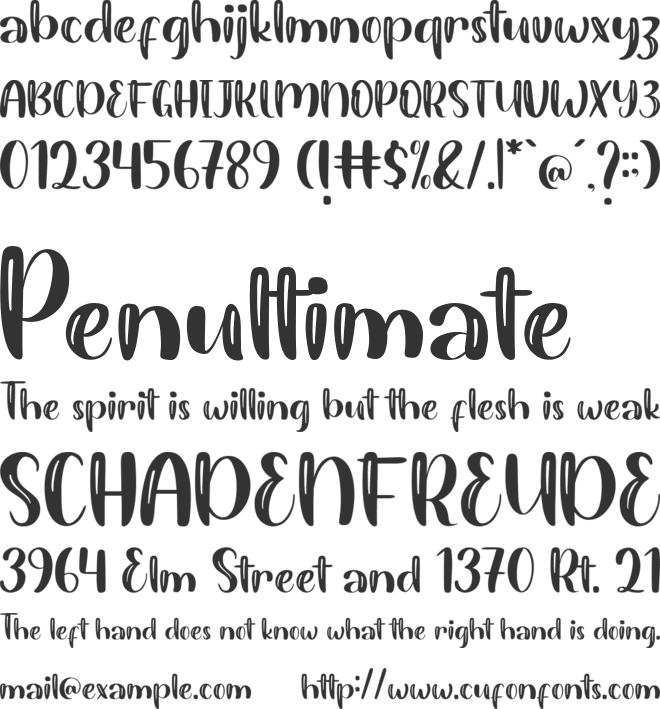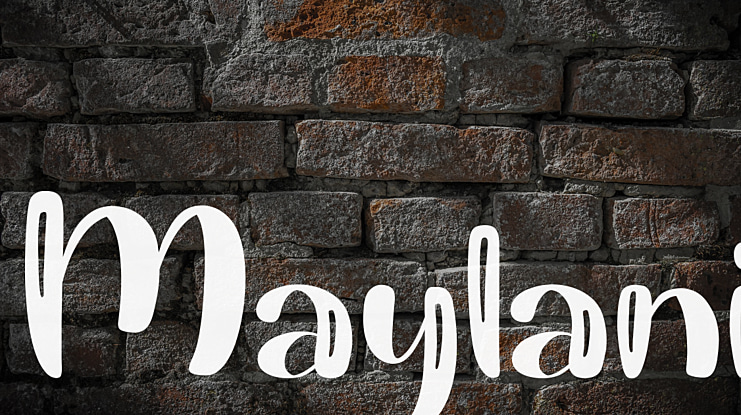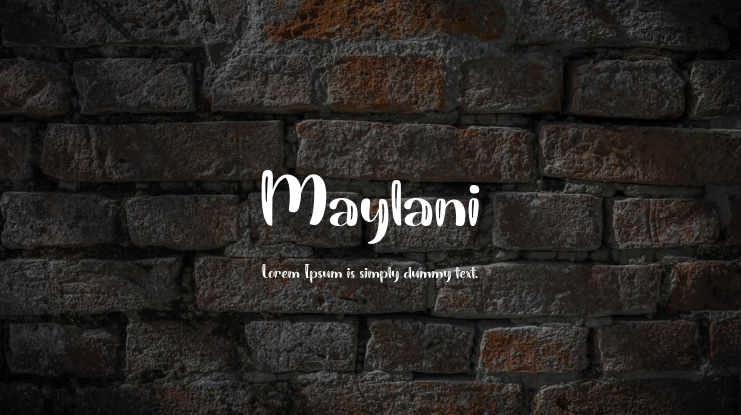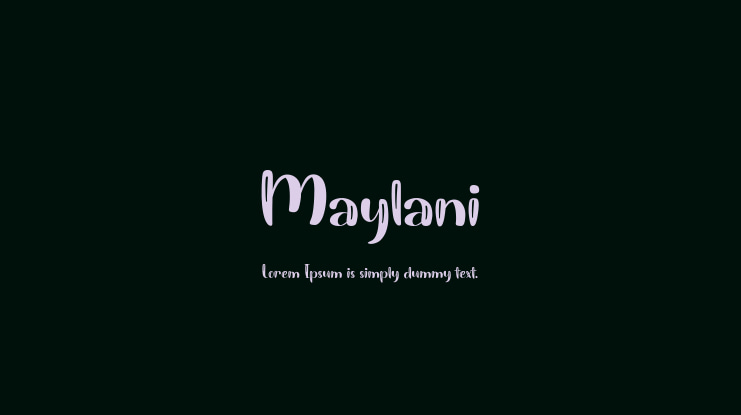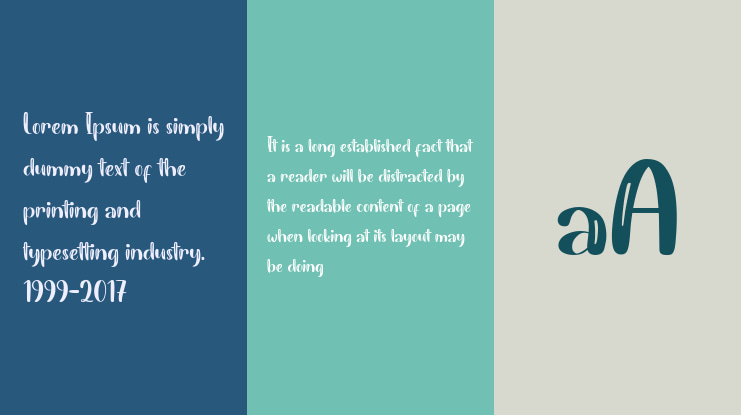
Maylani Font
About Maylani font :
Maylani is a new handwriting font with a smooth, calm, and pleasant impression. With a cute style it looks stunning on wedding invitations, quotes, greeting cards, eye-catching social media posts, thank you cards, and much more other design.